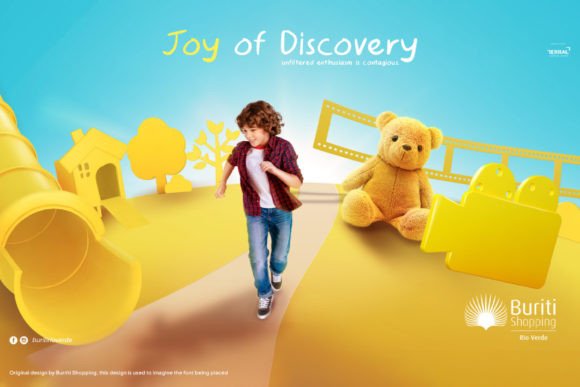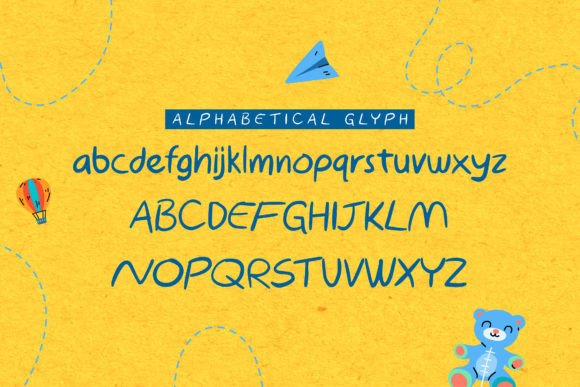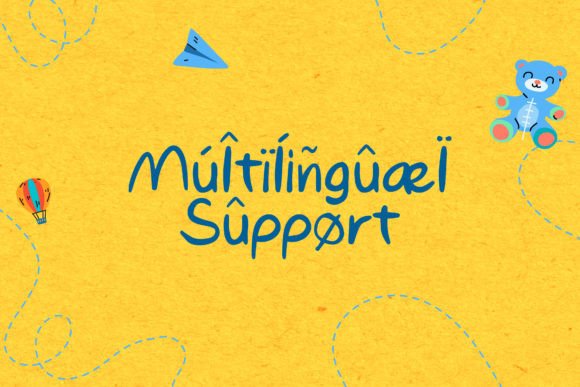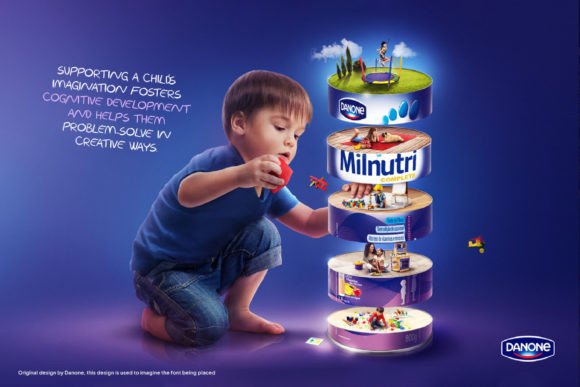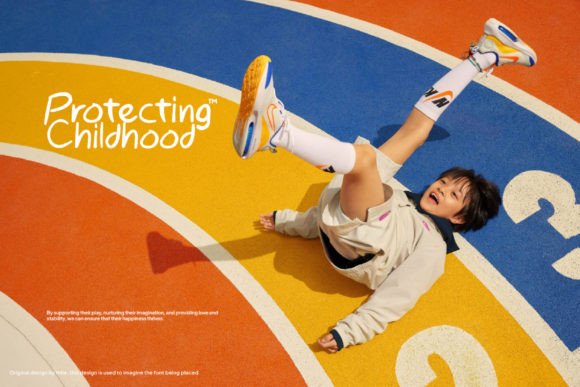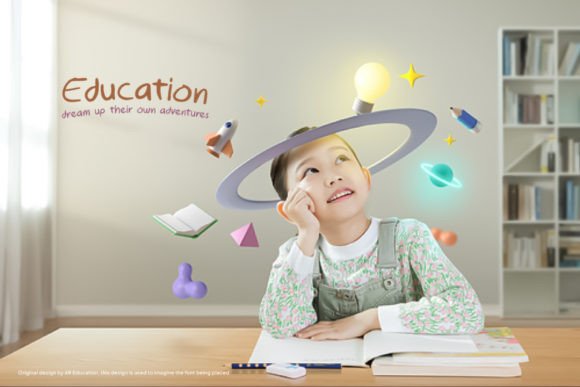
Introducing FT Cairove: The Ultimate Font for Children’s Projects
Are you looking for a font that can add a touch of fun and creativity to your children’s projects? Look no further than FT Cairove, a delightful and playful handwriting font designed specifically for young audiences. With its smooth, flowing strokes and friendly, hand-drawn style, FT Cairove captures the essence of fun and creativity, making it perfect for designs aimed at kids.
A Font that Embodies the Spirit of Childhood
FT Cairove is inspired by the carefree spirit of childhood doodles and the charm of handwritten notes. Its organic shapes and playful forms make it feel approachable and lively, bringing a personal touch that resonates with children and parents alike. The font combines simplicity with a friendly aesthetic, making it easy to read while maintaining the lively energy of a child’s handwriting.
Whether you’re designing educational materials, children’s books, or playful branding, FT Cairove is the perfect font for your project. Its cheerful and approachable look can bring warmth and personality to any design, making it ideal for engaging young readers and creating a sense of fun. From worksheets and activity sheets to book covers and posters, FT Cairove is sure to add a touch of whimsy and joy to your designs.
Key Features of FT Cairove
- Playful and Handwritten Style: FT Cairove has a smooth, flowing script that mimics the look of a child’s handwriting, making it perfect for designs aimed at young audiences.
- Easy to Read: Despite its playful nature, FT Cairove is easy to read, making it ideal for body text in children’s books, educational materials, and other projects where readability is key.
- Versatile: FT Cairove can be used for a variety of projects, from formal educational materials to playful branding and advertising.
- Fun and Engaging: The font’s lively energy and friendly aesthetic make it perfect for designs that need to engage young readers and create a sense of fun.
How FT Cairove Can Elevate Your Designs
FT Cairove can add a touch of personality and whimsy to any design. Its playful style and friendly aesthetic make it perfect for designs that need to appeal to young audiences. Here are a few ways FT Cairove can elevate your designs:
- Add a Personal Touch: FT Cairove’s handwritten style gives designs a personal touch that resonates with children and parents alike.
- Create a Sense of Fun: The font’s lively energy and playful style make it perfect for designs that need to create a sense of fun and engagement.
- Enhance Readability: Despite its playful nature, FT Cairove is easy to read, making it ideal for body text in children’s books and educational materials.
Tips for Using FT Cairove in Your Designs
- Pair with Bold Fonts: Pair FT Cairove with bold fonts to create a striking contrast and add visual interest to your designs.
- Use in Headings and Body Text: Use FT Cairove in headings and body text to create a cohesive look and add a touch of personality to your designs.
- Experiment with Colors: Experiment with different colors to find the perfect combination that brings your designs to life.
FT Cairove is a delightful and playful handwriting font designed specifically for children’s projects. With its smooth, flowing strokes and friendly, hand-drawn style, FT Cairove captures the essence of fun and creativity, making it perfect for designs aimed at young audiences. Whether you’re designing educational materials, children’s books, or playful branding, FT Cairove is sure to add a touch of whimsy and joy to your designs.